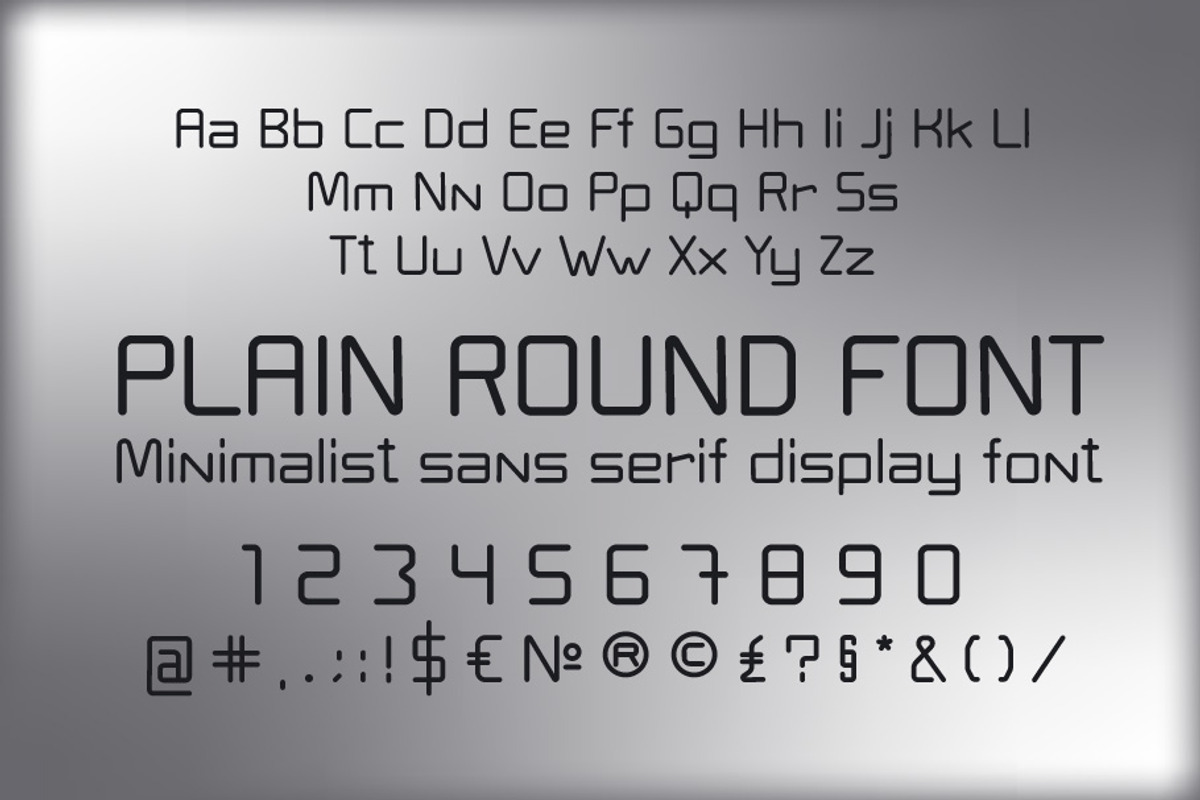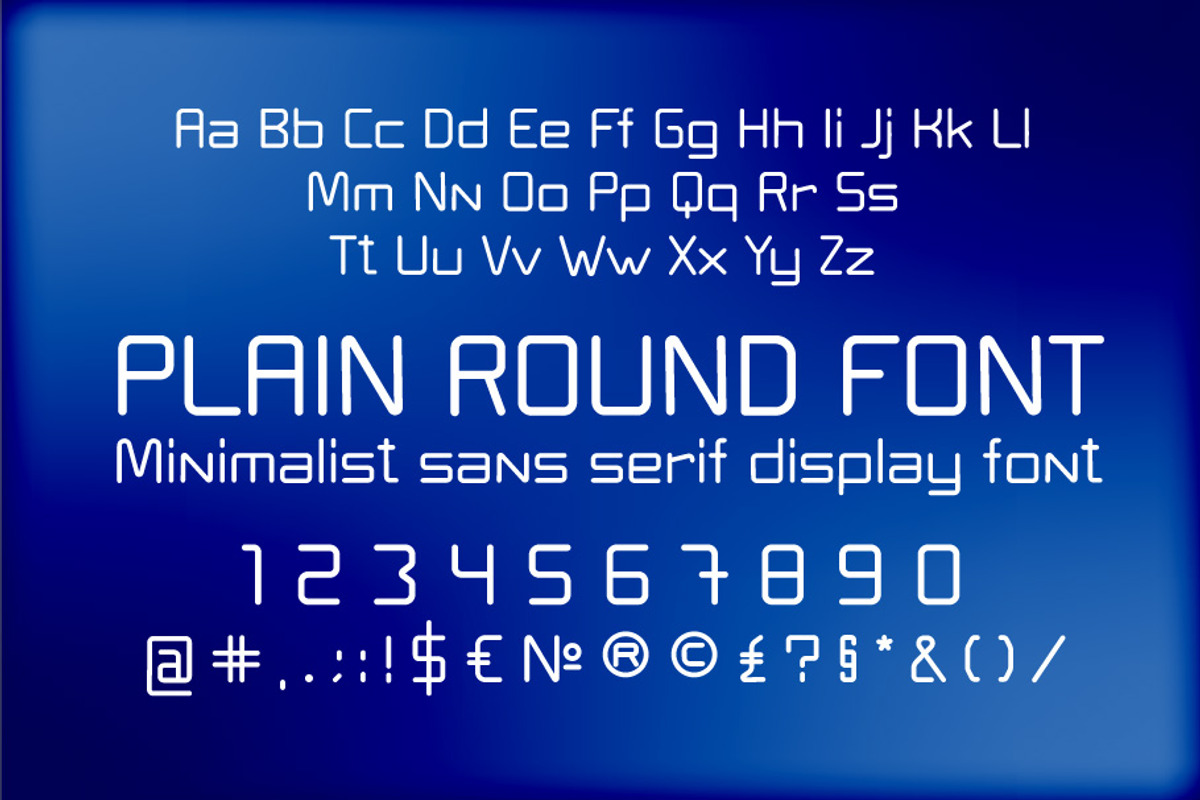
Plain Round Sans Serif Font
Plain is a modern simple and geometric typeface with versatility in mind. You can use this font for many different projects ex: quotes, blog header, poster, branding, logo, letter, invitation, stationery, etc. OTF, WOFF, TTF, AI, PDF format included.